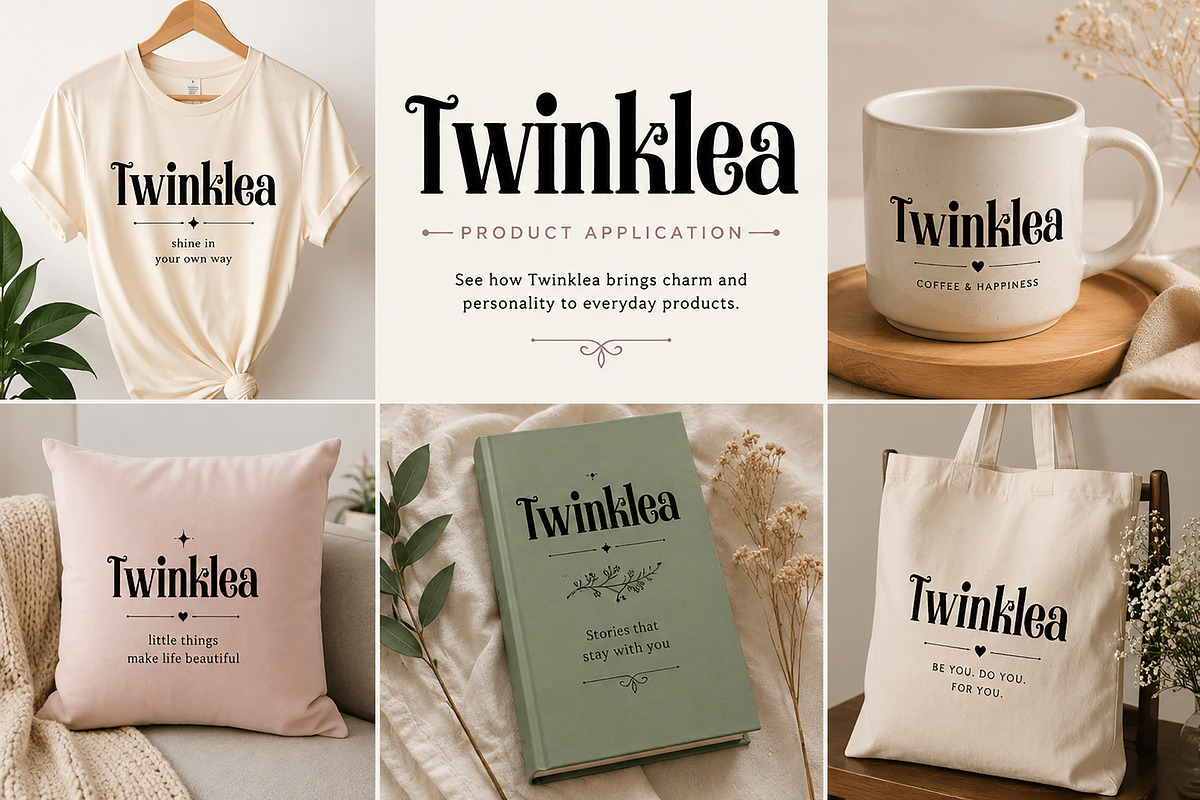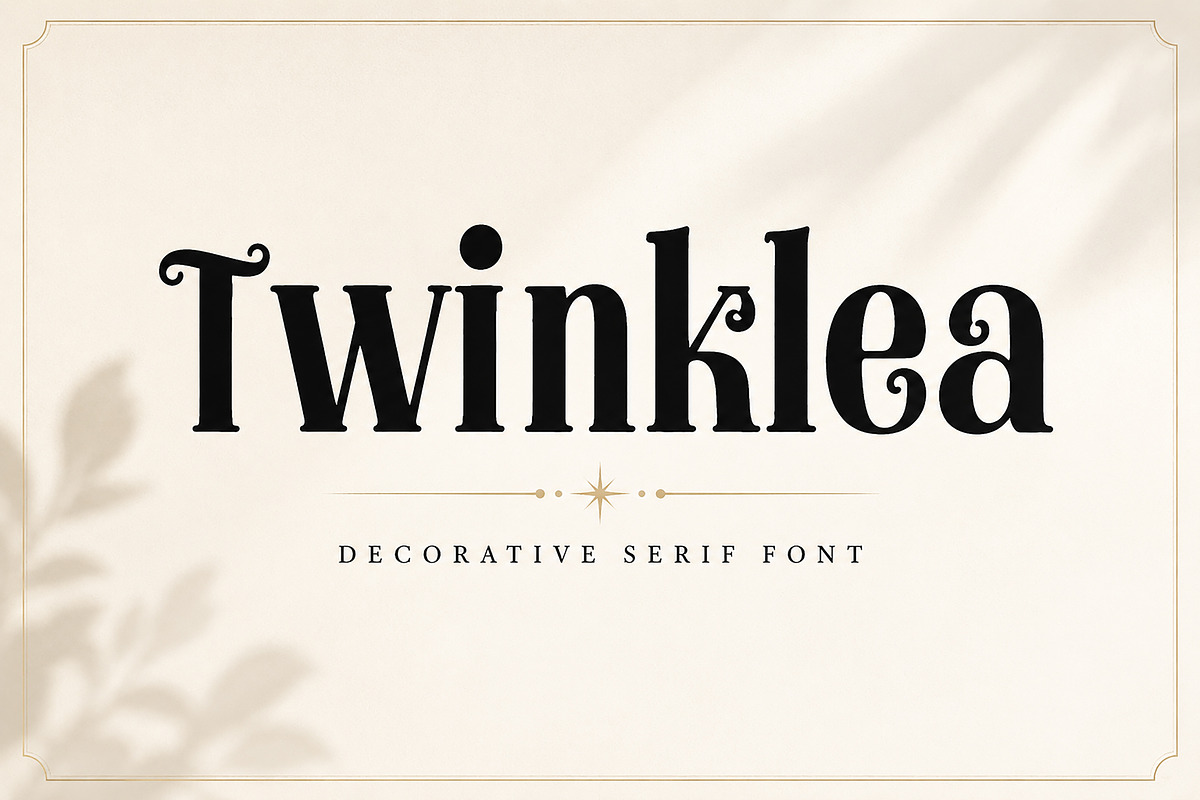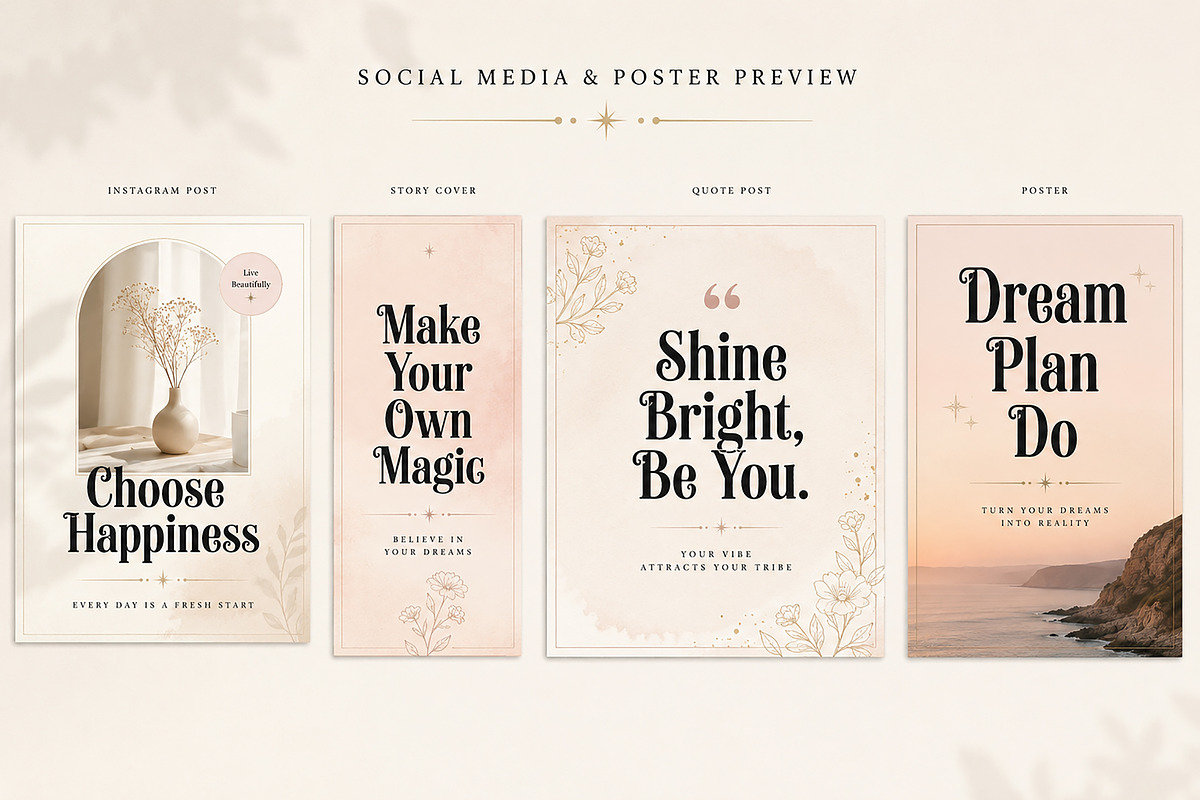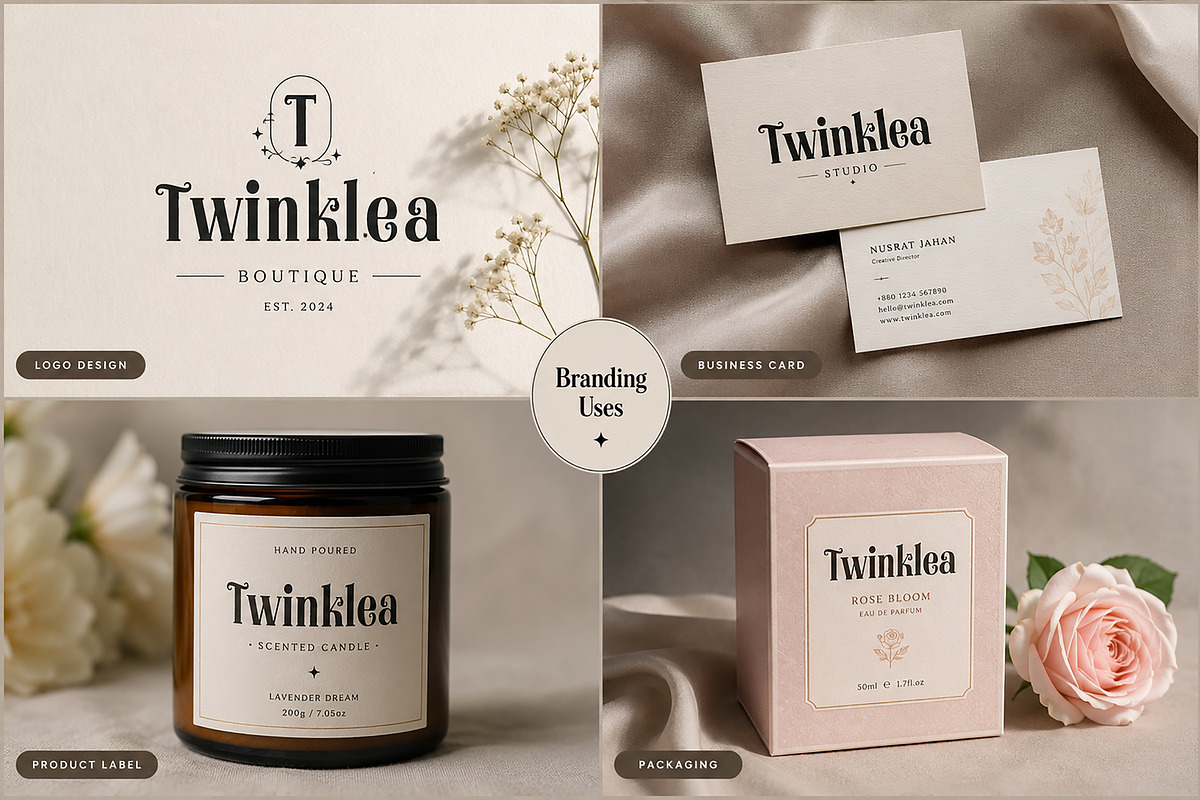
Twinklea
Twinklea is a charming decorative serif font crafted to bring elegance, personality, and artistic flair into your designs. With its graceful curves, playful swashes, and stylish vintage-inspired details, Twinklea delivers a perfect balance between sophistication and creativity.
Designed for creators who want their typography to stand out, Twinklea works beautifully across branding, logos, packaging, editorial layouts, social media graphics, wedding invitations, beauty products, boutique labels, and stylish quotes.
Its unique letterforms create a timeless aesthetic that feels both modern and classic, making it a versatile choice for premium and feminine design projects.
Branding Projects
Wedding Invitations
Editorial Layouts
Social Media Posts
Beauty & Fashion Branding
Boutique Labels
Posters & Quotes
Bring elegance and charm to your next project with Twinklea — a decorative serif font made to shine beautifully in every detail.